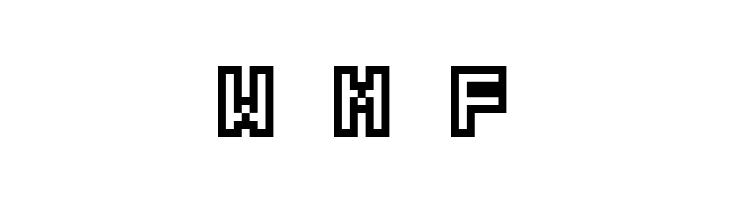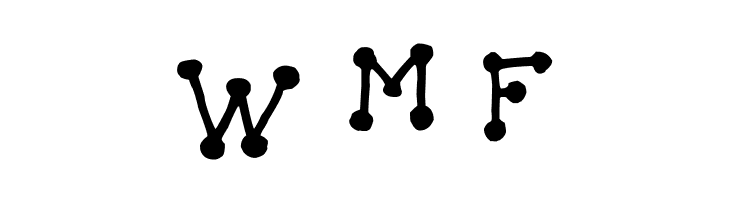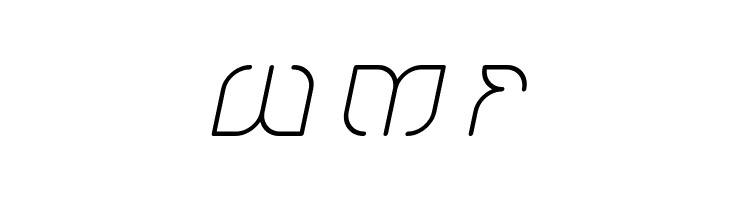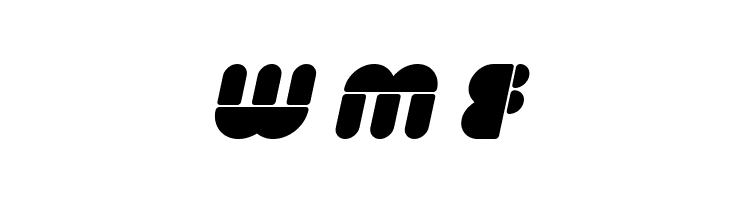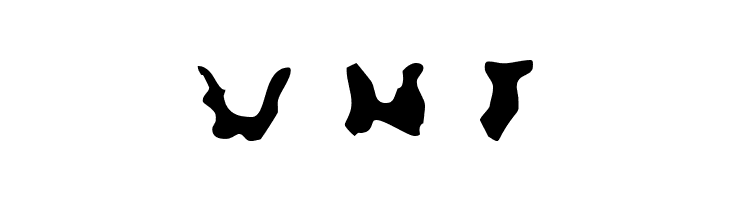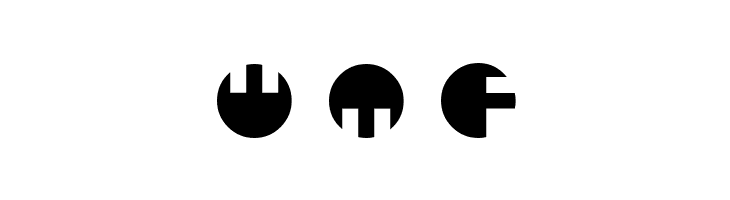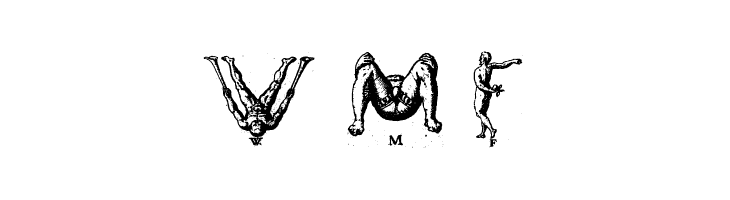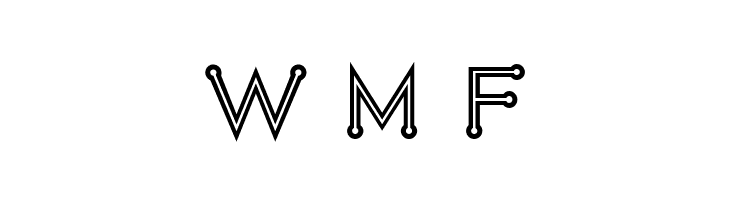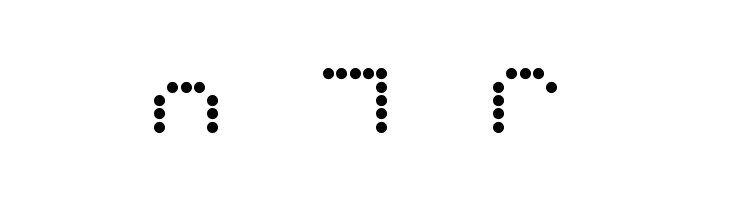
A playful, dot-connected font with a whimsical and friendly style.
A display font made from weapon and tool silhouettes, bold and graphic.
A modern, italic font with geometric and organic elements.
A bold, blocky font with an inverse design and geometric shapes.
A modern, geometric font with thin, continuous lines and a sleek design.
A bold, futuristic font with geometric and consistent strokes.
A bold, rounded font with a futuristic and geometric style.
A bold, italicized font with a modern, artistic design featuring rounded shapes and high contrast.
A modern, rounded font with smooth, continuous lines and a playful aesthetic.
A playful font made of coffee bean-like shapes, offering a textured and unique appearance.
A bold, geometric font with angular and modern design elements.
A geometric, hollow font with sharp angles and a futuristic style.
A pixelated, grid-based design inspired by the Arecibo message, reflecting a digital and futuristic style.
An abstract, ink-splatter style font with a highly decorative and artistic appearance.
A playful font with characters held by a hand, offering a unique and artistic style.
A playful, handwritten font with a casual and whimsical style.
A modern, geometric outline font with a clean and airy aesthetic.
A playful, clip-constructed font with a geometric and industrial style.
A bold, circular geometric font with a modern and abstract style.
A unique font where human figures form each letter, offering a bold and artistic style.
A dot matrix style font with a retro, tech-inspired aesthetic.
A geometric, modern font with consistent stroke width and sharp angles.
A modern, decorative outline font with rounded edges and open spaces.
A decorative font with characters formed by interconnected circles, offering a playful and modern look.
A dot-based, geometric font with a futuristic and digital aesthetic.
A tactile writing system using raised dot patterns for the visually impaired.
A futuristic, abstract font with sharp angles and minimalistic strokes.
A bold, geometric font with a retro aesthetic and playful design.
A playful and artistic font made from lip print designs, perfect for creative projects.
A whimsical, decorative font with cartoon-like illustrated characters.
A whimsical, artistic font with abstract, decorative characters.
A decorative font with characters formed by diamond shapes, offering a modern and artistic look.
A casual, handwritten font with fluid, slightly uneven strokes.
A dotted font ideal for educational and playful design projects.
A playful, pixelated outline font with a retro video game aesthetic.